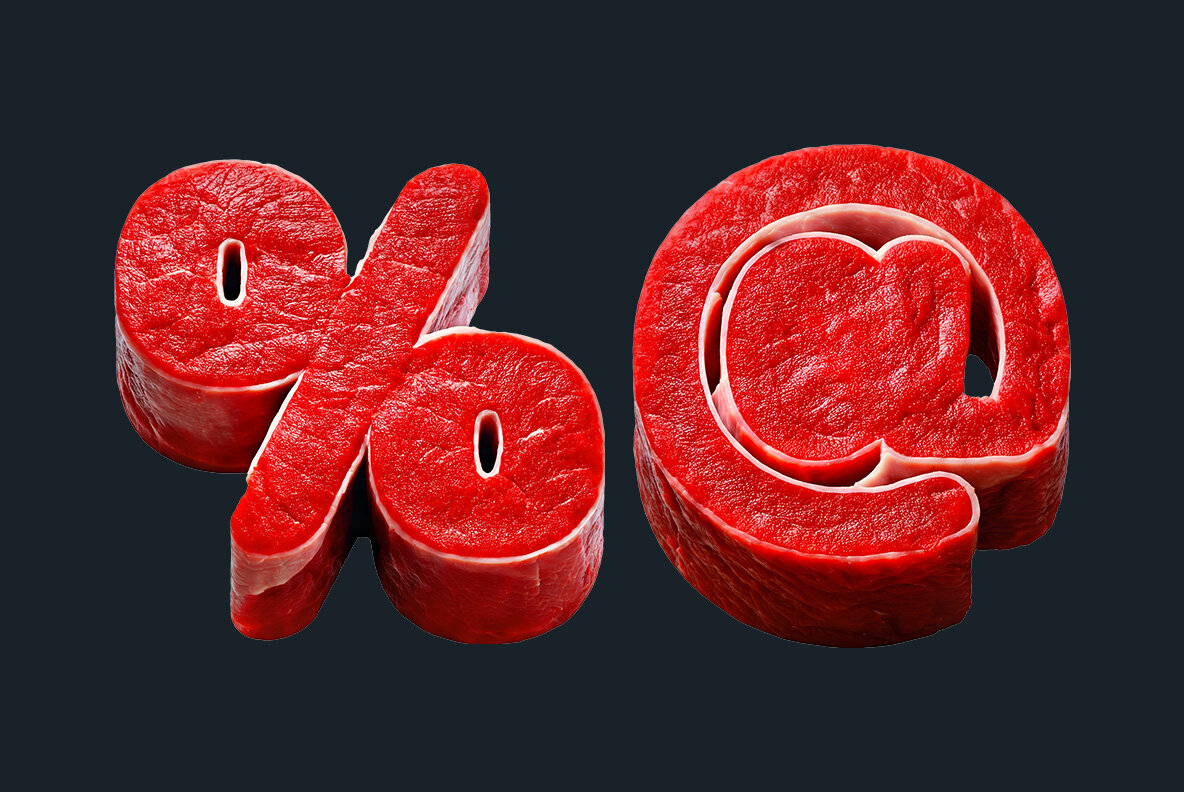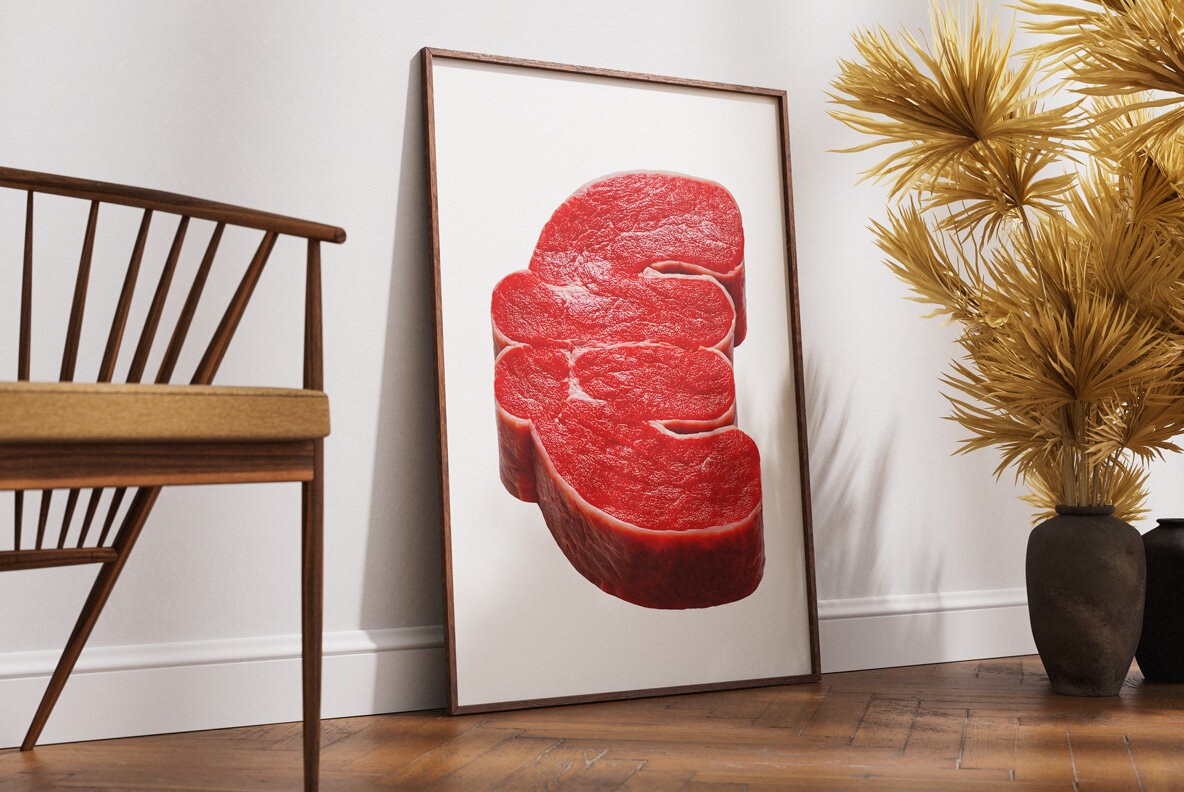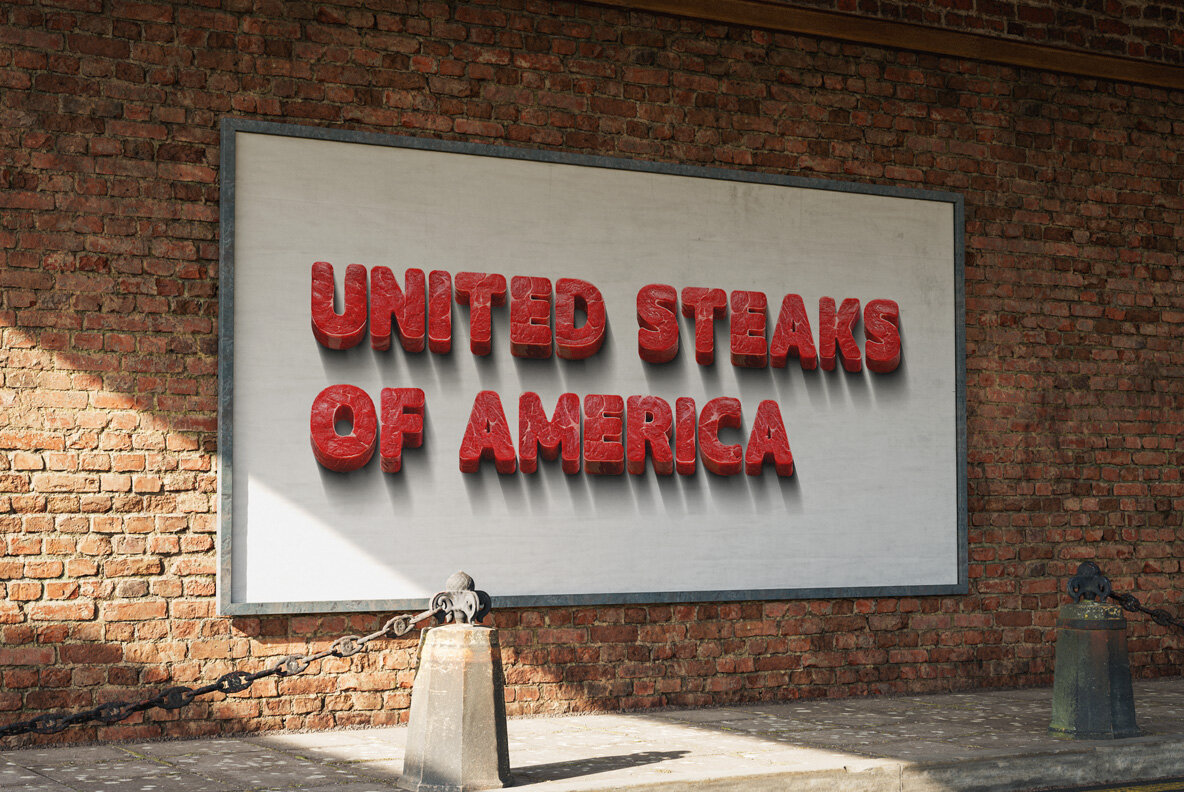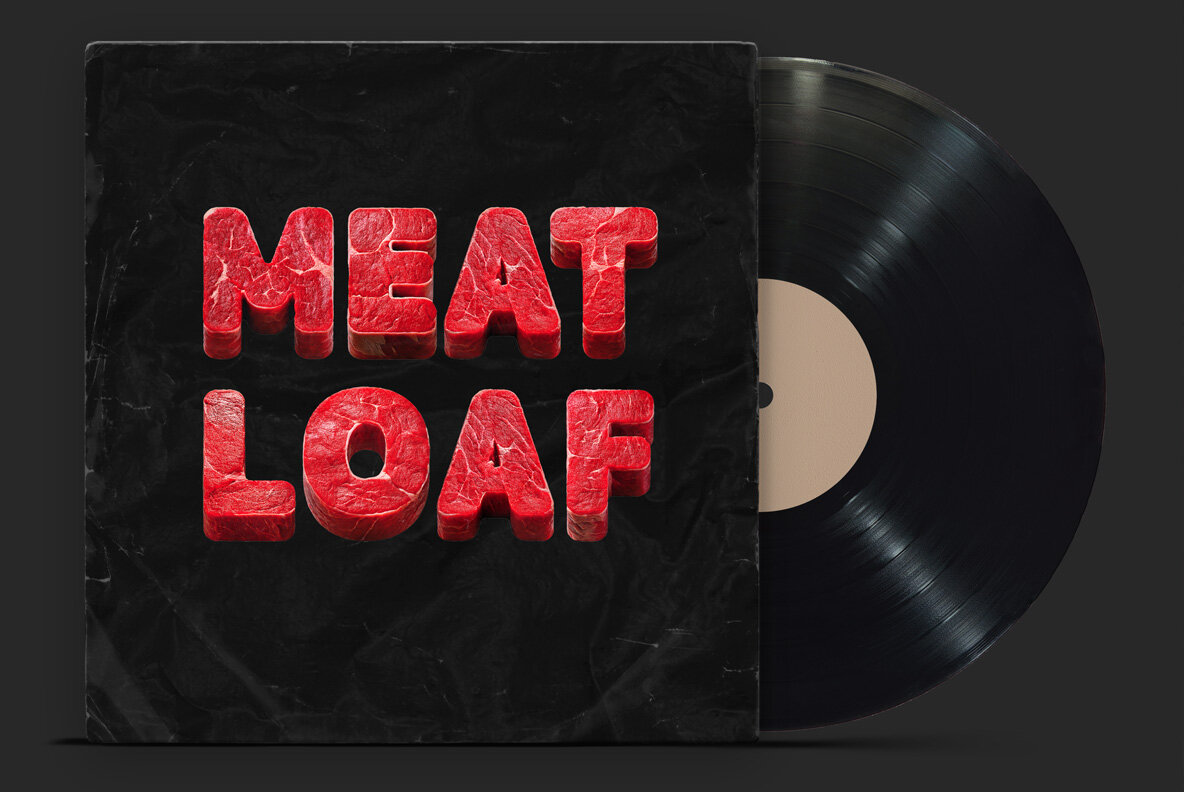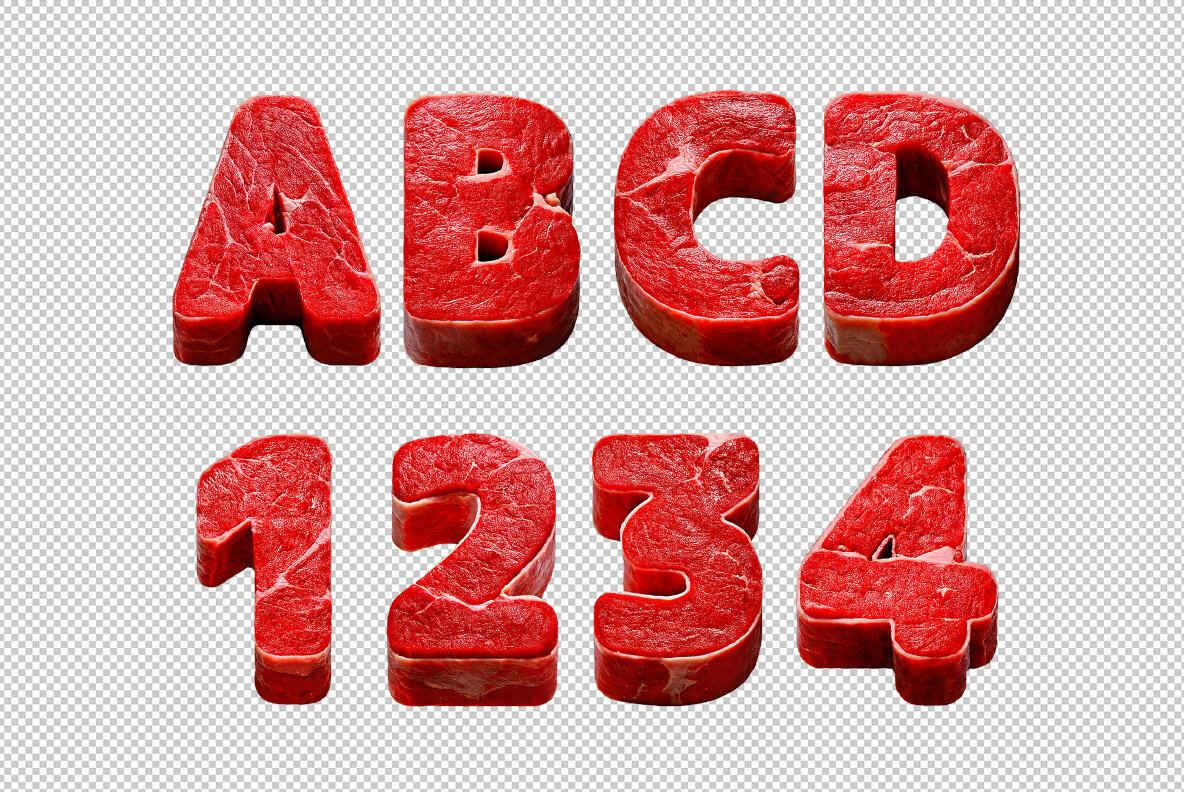
Row Meat is a bold and dynamic typeface uniquely crafted from raw meat textures. With rich marbling and intricate details, it brings an edgy touch to culinary-themed designs. Ideal for creating dynamic posters, restaurant branding, or striking social media content, this steak-inspired alphabet makes a memorable meaty statement.